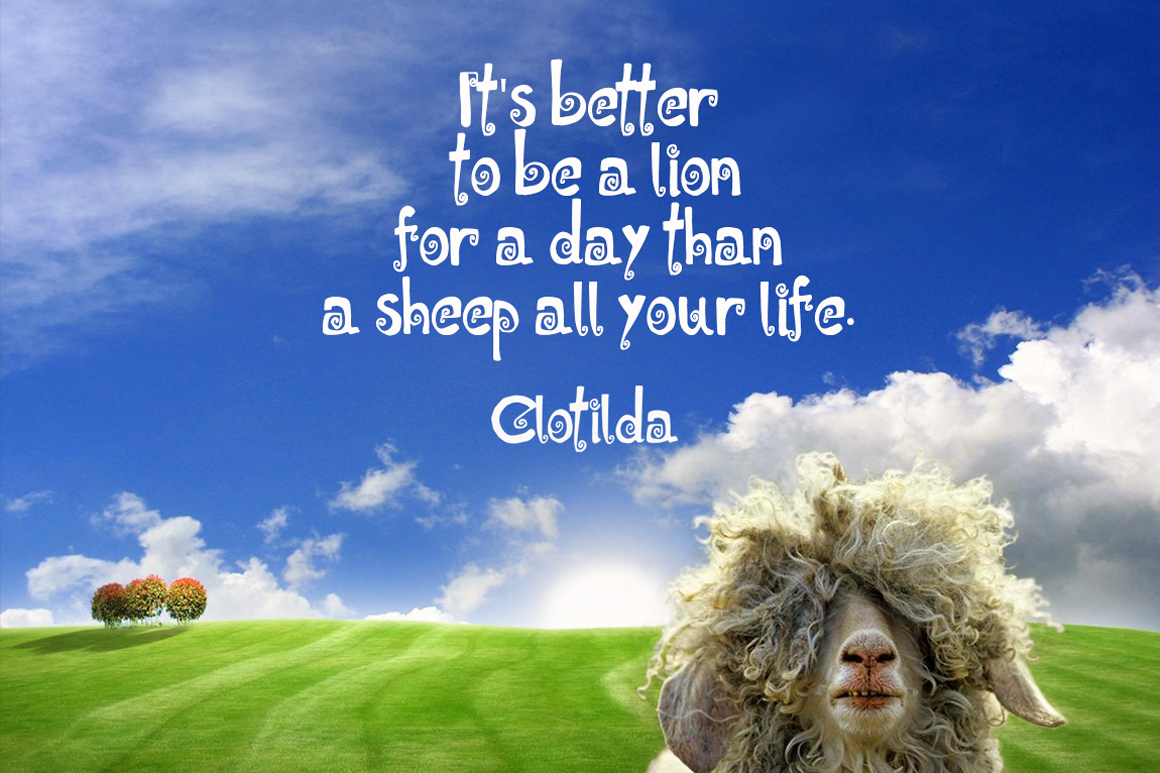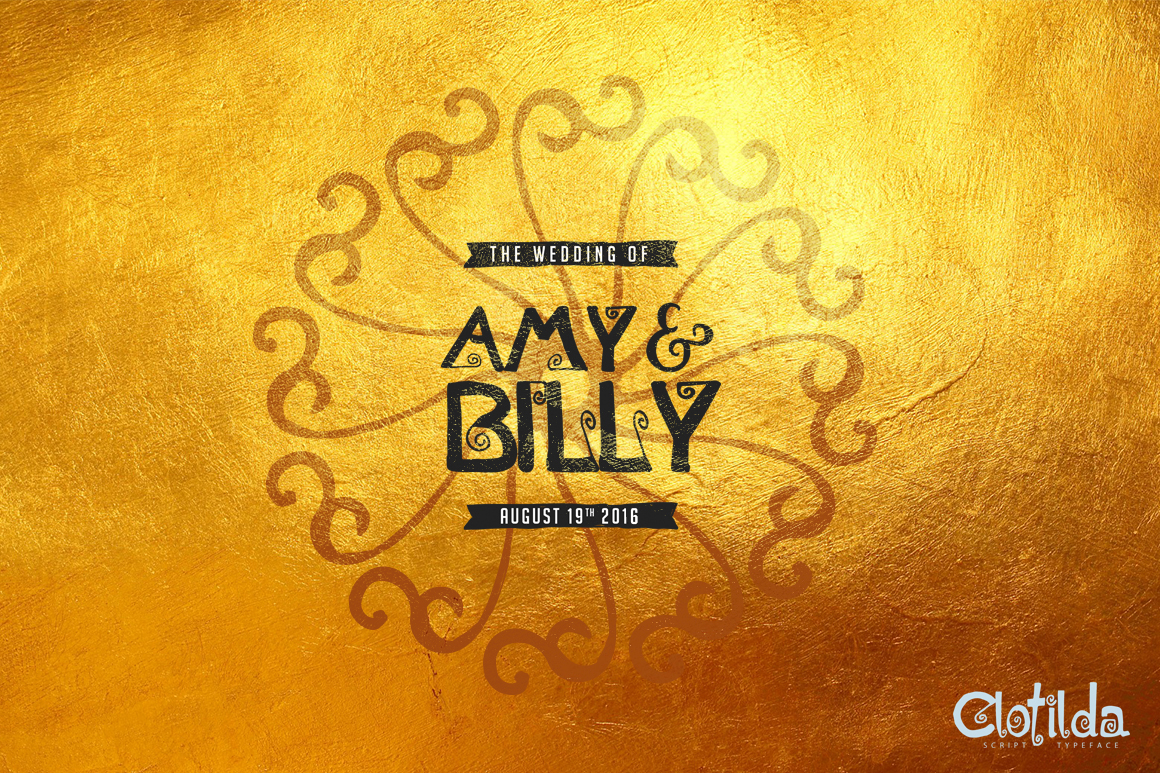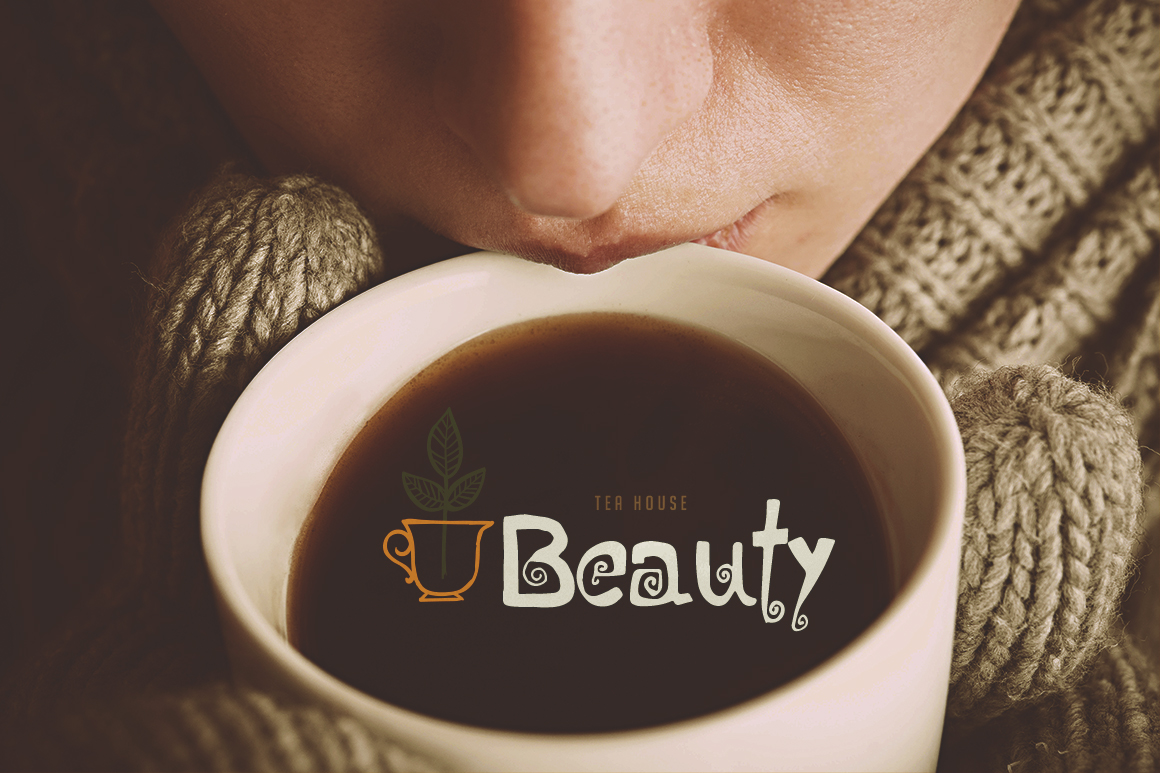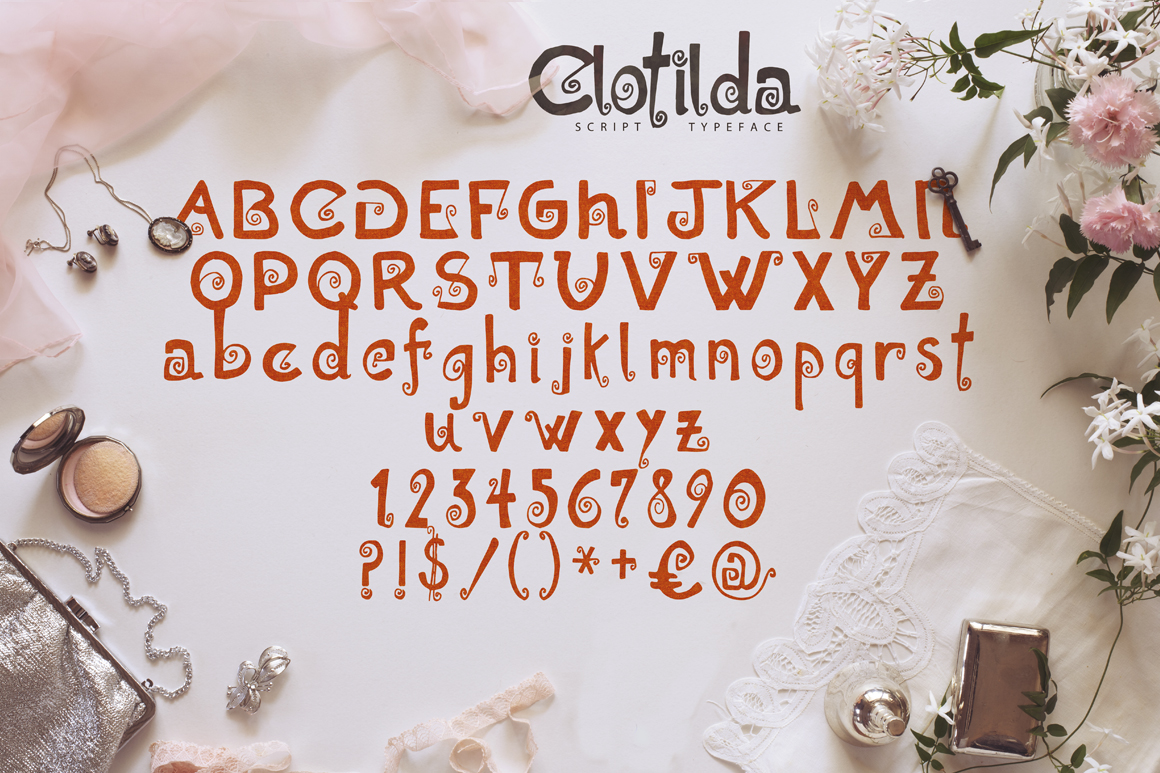
Introducing Clotilda Font: A Fun and Whimsical Typeface with Curly Decorations
Are you tired of using the same old boring fonts in your designs? Look no further than Clotilda Font, a fun and stylish typeface that’s sure to add a touch of whimsy to your projects. As described, “Clotilda is a fun styled font with curly decorations,” and we’re excited to dive into what makes this font so special.
What is Clotilda Font?
Clotilda Font is a unique and eye-catching typeface that’s perfect for designers and crafters looking to add some personality to their work. With its curly decorations and playful style, Clotilda is sure to stand out from the crowd. Whether you’re working on a graphic design project, creating handmade crafts, or simply looking for a fun font to use in your digital creations, Clotilda is a great choice.
Key Features of Clotilda Font
So, what makes Clotilda Font so special? Here are just a few of its key features:
- Curly Decorations: Clotilda’s curly decorations are what set it apart from other fonts. These playful flourishes add a touch of whimsy to your text and make it perfect for use in creative projects.
- Fun and Playful Style: Clotilda has a fun and playful style that’s perfect for designers and crafters who want to add some personality to their work.
- Unique and Eye-Catching: Clotilda is a one-of-a-kind font that’s sure to grab attention. Whether you’re using it in a graphic design project or a handmade craft, Clotilda is sure to make your work stand out.
Uses for Clotilda Font
So, what can you use Clotilda Font for? The possibilities are endless! Here are a few ideas to get you started:
- Graphic Design: Clotilda is perfect for use in graphic design projects, such as logos, brochures, and posters.
- Handmade Crafts: Clotilda is a great choice for crafters who want to add a personal touch to their handmade projects, such as scrapbooking, card making, and journaling.
- Digital Creations: Clotilda can also be used in digital creations, such as social media graphics, blog posts, and digital art.
Tips for Using Clotilda Font
Here are a few tips for using Clotilda Font in your designs:
- Use it Sparingly: While Clotilda is a fun and playful font, it can be overwhelming if used too much. Use it sparingly to add a touch of whimsy to your text.
- Pair it with Other Fonts: Clotilda can be paired with other fonts to create a unique and interesting look. Try pairing it with a bold font for a striking contrast.
- Experiment with Colors: Clotilda looks great in a variety of colors. Experiment with different colors to find the one that works best for your project.
| Font Name | Clotilda Font |
| Author | SmartDesigns |
Clotilda Font is a fun and whimsical typeface that’s perfect for designers and crafters looking to add some personality to their work. With its curly decorations and playful style, Clotilda is sure to stand out from the crowd. Whether you’re working on a graphic design project, creating handmade crafts, or simply looking for a fun font to use in your digital creations, Clotilda is a great choice. So why not give Clotilda a try and see what kind of creative projects you can come up with?